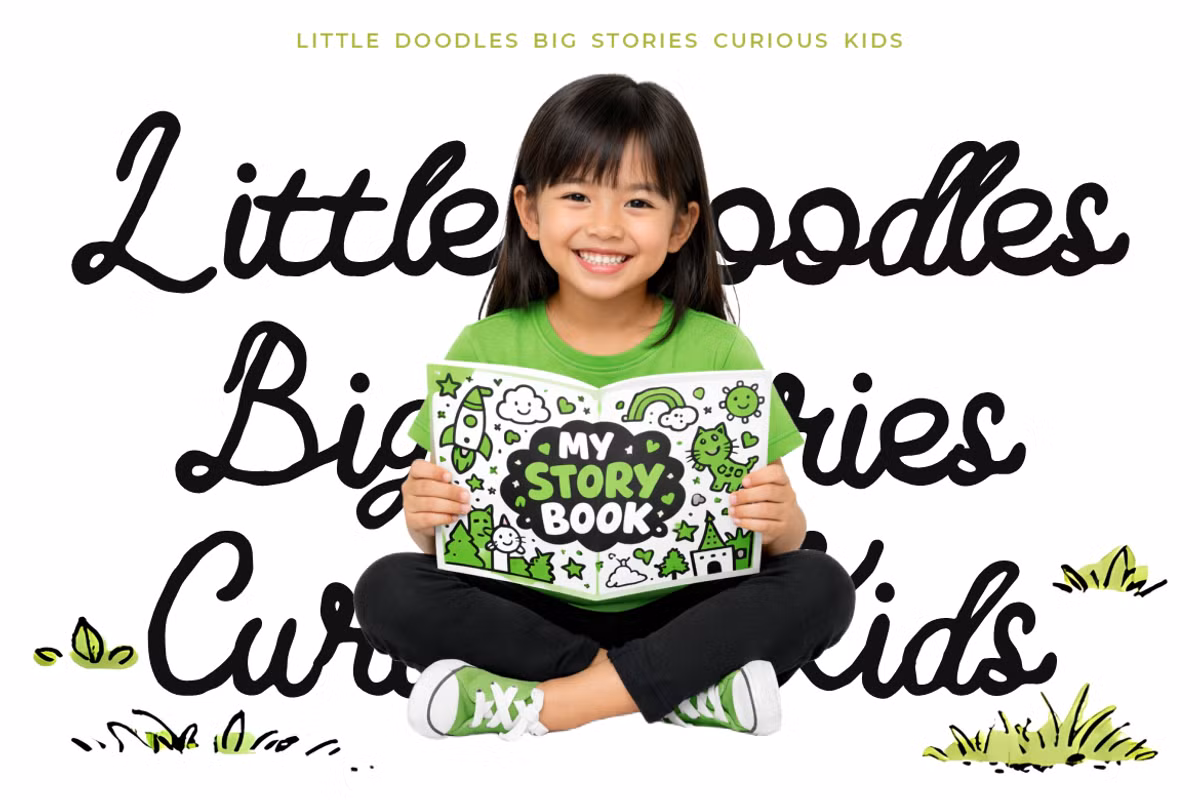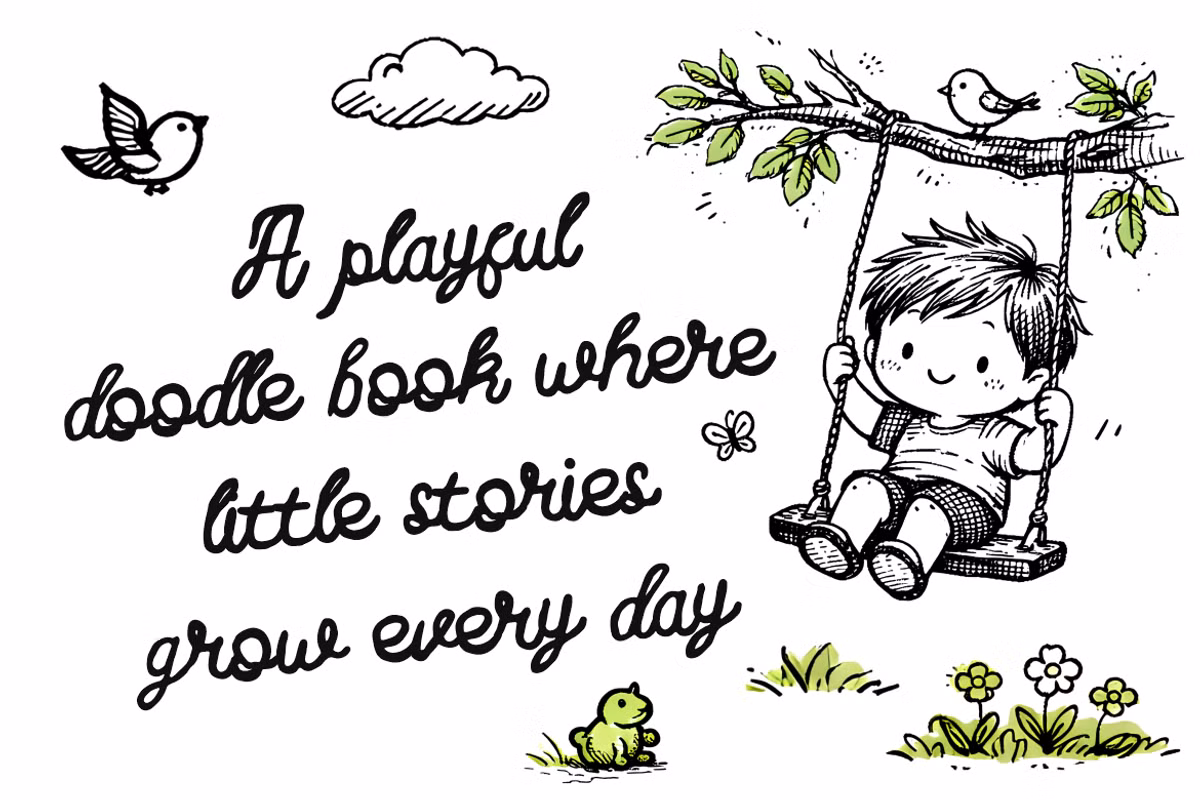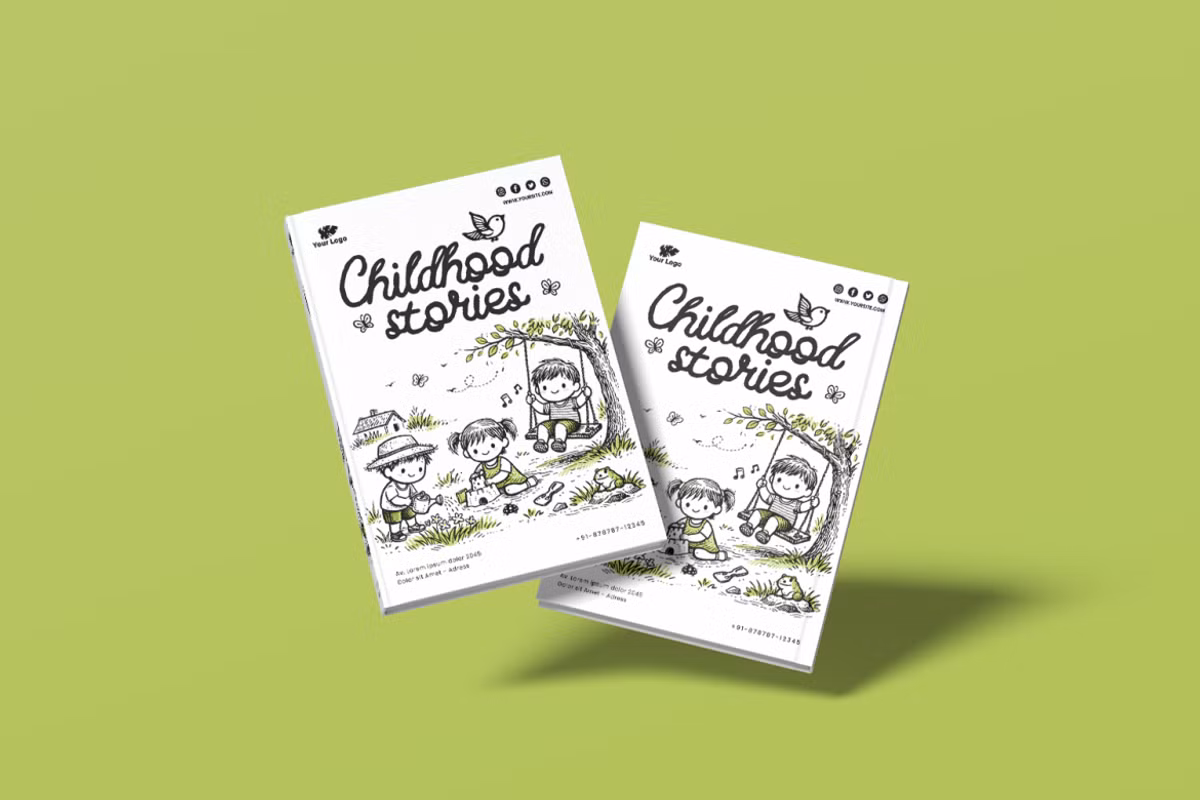
Floweey Doodle Handwriting Script: Playful Font for Creative Projects
Introduction to Floweey Doodle Handwriting Script Font
The Floweey Doodle font is really nice, it looks like it was written with a pen. It’s got a fun and charming feel to it, which makes it great for lots of different projects. The way the letters flow together is relaxed and smooth, with nice rounded edges. This font is meant to make you feel all warm and fuzzy inside, so it’s good for using in both casual and professional things. It’s just a really friendly-looking font that can add a lot of personality to whatever you’re working on.
Design Style of Floweey Doodle Handwriting Script Font
The Floweey Doodle design has a really nice feel to it, with lines that are not too thick or too thin, and curves that are soft and easy on the eyes. The way the letters connect to each other is also very smooth, which makes it look like it was written by hand. If you look closely, you can see that the letters are not all the same height, and the line that they sit on is not always straight, which gives it a more natural, organic look. The tall parts of the letters, like the ones that stick up, are nice and long, and the parts that hang down are curved in a way that looks gentle and flowing. All of this together creates a sense of balance that makes your eyes want to keep looking.
This font is really cool because it mixes modern handwriting with fun doodles. It’s easy to read, even when the letters are all connected, which makes it great for titles and small blocks of text. The letters flow nicely into each other, so it looks nice and friendly, perfect for grabbing people’s attention. Whether you’re using it for a big headline or a few short sentences, Floweey Doodle is a fantastic option.
Character Sets and Features
The Floweey Doodle Handwriting Script Font has a lot to offer – it’s got a big set of characters that are really fun and playful. This includes uppercase and lowercase letters, numbers, and all the punctuation you need. The uppercase letters are especially cool, with bold strokes and fancy swashes that make them perfect for logos and brand names that want to stand out and show some personality.
This font has a really nice flow to it, which makes it perfect for things like quotes, invitations, and labels on packages. What’s great is that the numbers and punctuation marks have the same handmade feel as the letters, so everything looks consistent. Plus, it works with characters from lots of different languages, which is super useful if you’re a brand that’s global.
Use Cases for Floweey Doodle Handwriting Script Font
Floweey Doodle Handwriting Script Font is incredibly versatile, making it suitable for a wide range of creative applications. Here are some common use cases:
- Creative Branding: This font’s friendly personality is ideal for small businesses, handmade products, and creative studios looking to establish a warm brand presence.
- Children’s Book Covers: With its whimsical style, Floweey Doodle enhances the visual appeal of children’s literature, making it more engaging for young readers.
- Greeting Cards and Stickers: The font’s cheerful aesthetic is perfect for crafting personalized greeting cards and delightful stickers.
- Social Media Headlines: Use Floweey Doodle to create eye-catching headlines and posts that stand out on social media platforms.
Pairing Suggestions for Floweey Doodle Handwriting Script Font
To maximize the impact of Floweey Doodle Handwriting Script Font in your designs, consider pairing it with complementary typefaces. Here are some effective pairing suggestions:
Using a simple font like Helvetica or Montserrat with Floweey Doodle makes your text look modern and easy to read. It’s a great way to add some fun to your writing without making it hard to understand. The clean lines of the sans serif font balance out the playful feel of Floweey Doodle, creating a nice contrast that’s perfect for lots of different projects.
Using a traditional serif font like Playfair Display can add a touch of sophistication to your design, which is a nice contrast to the playful feel of Floweey Doodle. This combination works really well for things like formal invitations or branding, where you want to look polished and professional. The classic look of the serif font helps to balance out the whimsy of the other font, creating a nice visual harmony.
The Floweey Doodle Handwriting Script Font is really special – it’s not just a font, it’s a way to make your work feel more personal and friendly. It has a one-of-a-kind look, lots of different characters, and can be used in so many ways, making it perfect for all sorts of projects, from creating a brand to just making something for fun. If you’re working on a kids’ book, making a sweet card for someone, or coming up with a logo, Floweey Doodle can help make your ideas look amazing and feel really alive. It’s a great tool for anyone who wants to add some warmth and charm to what they’re making.